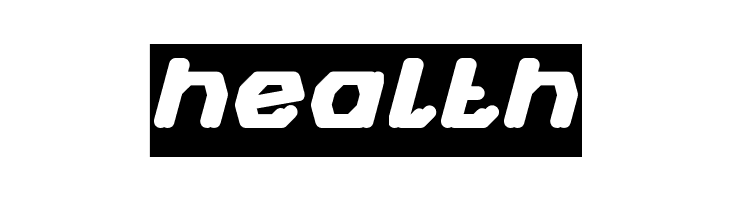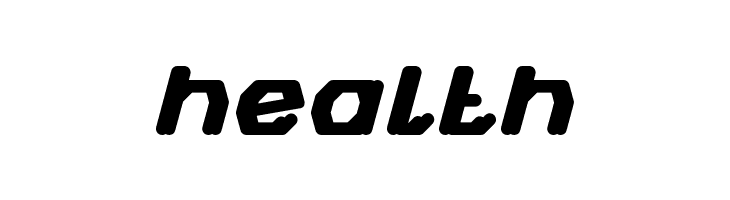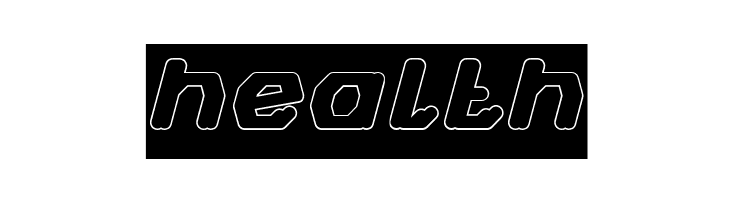
Ethnocentric Font
A bold, futuristic font with sharp, angular lines and a geometric structure.
STARWARS Font
A bold, geometric font with strong, impactful letterforms.
BatmanForeverAlternate Font
A bold, angular font with a futuristic and geometric design.
01 Digitall Font
A futuristic, geometric font with a digital aesthetic.
G-Unit Font
An elegant, cursive font with flowing, ornate characters.
Xpressive Font
A modern, geometric font with clean lines and a sleek design.
AF PEPSI Font
A bold, italic, and modern font with a dynamic, forward-leaning style.
Cut SemiBold Font
A bold, geometric font with a modern cut-out style.
Executive Font
A bold, modern font with tall, narrow letterforms and high contrast, perfect for impactful designs.
01 DigitMono Font
A modern, geometric monospaced font with a futuristic aesthetic.
Shelf Life Regular Font
Gravicon Display Font
Neuropol Medium Font
A futuristic, geometric font with rounded letterforms and uniform stroke width.
Gordon Regular Font
A bold, geometric font with clean lines and a modern aesthetic.
MLB Toronto Blue Jays Wilson Font
Ermedia Studio
A bold, geometric font with a double-line effect, ideal for sports branding.
Nasalization Font
A bold, geometric font with a futuristic and modern style.
Excelsior Font
A bold, futuristic font with geometric shapes and sharp edges.
Predator Font